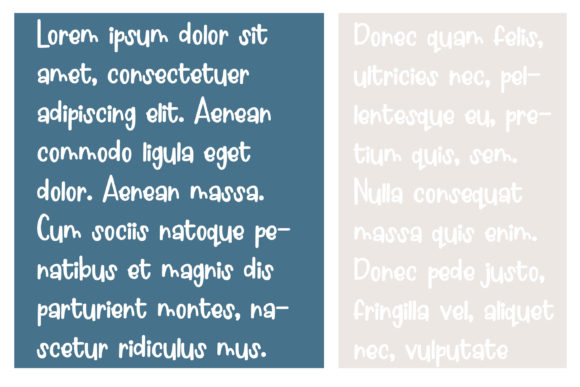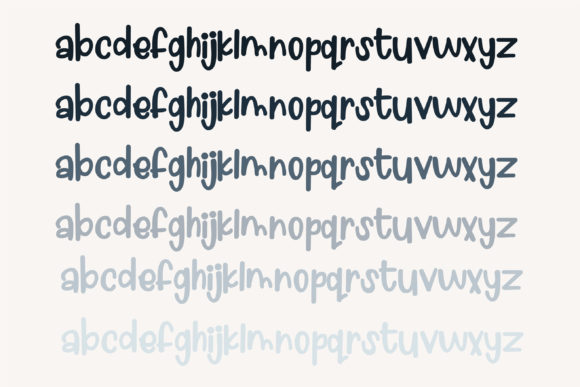
ZP Speculate Font
db-ku.com - Script & Handwritten -- This simple, hand-crafted print has a casual, friendly feel. Use it to add a personal note to all of your creative projects!